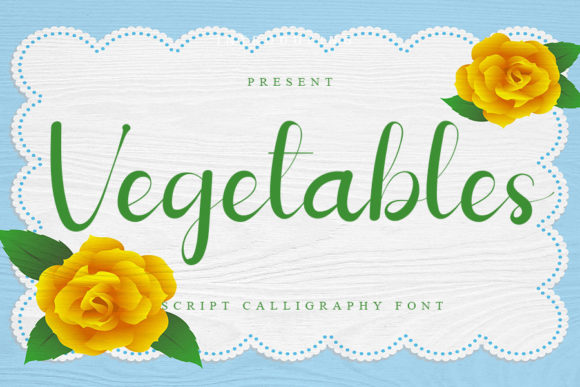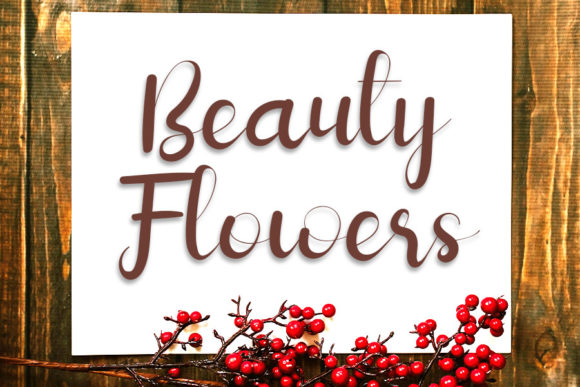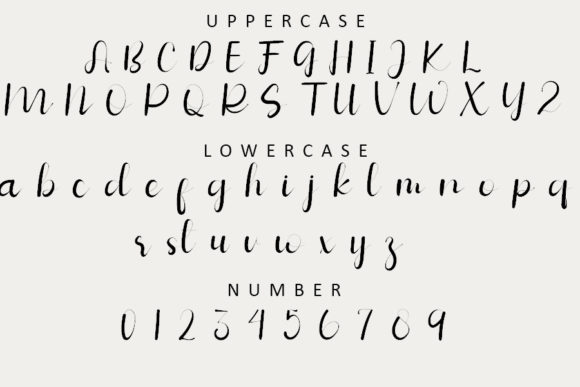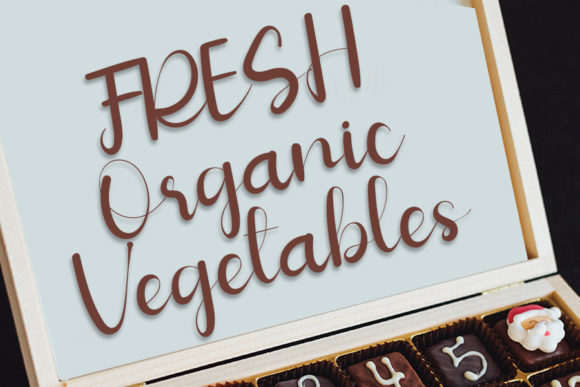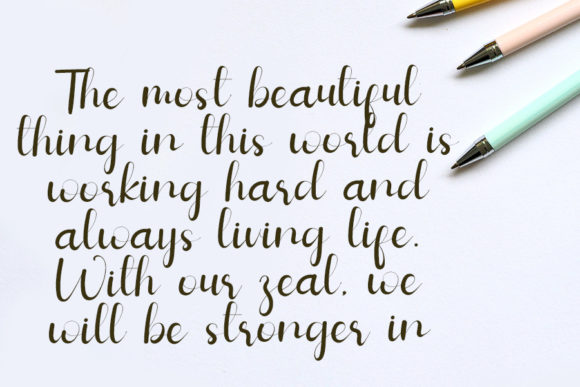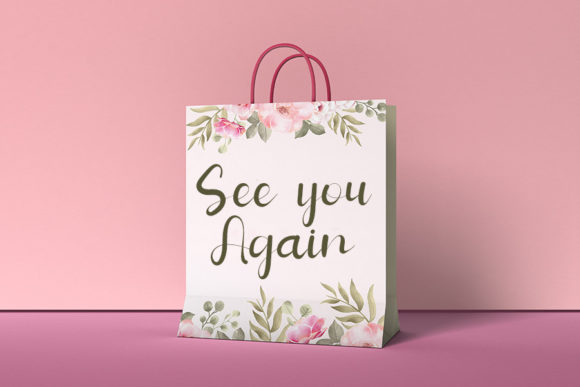
Vegetables Font
About Vegetables Font
Vegetables is a beautiful and refined script font. It has a classy, elegant and modern look that can be used for logos, branding, invitations, stationery, wedding designs, social media posts, and much more!